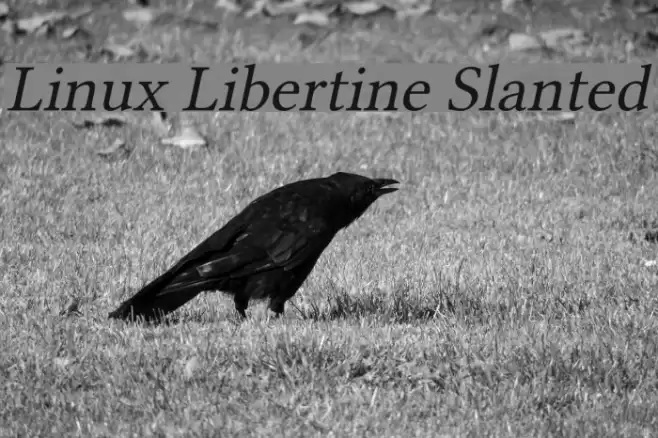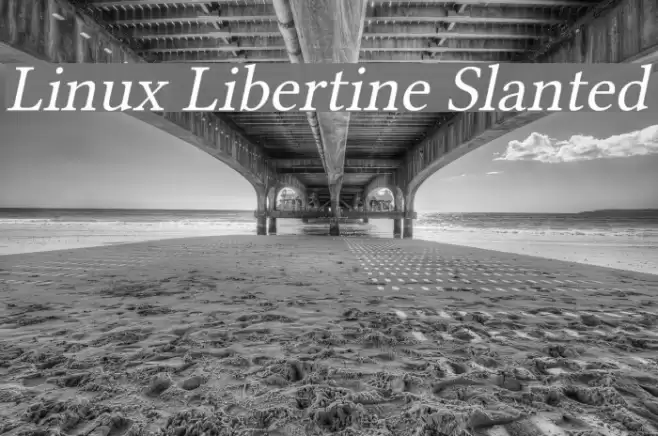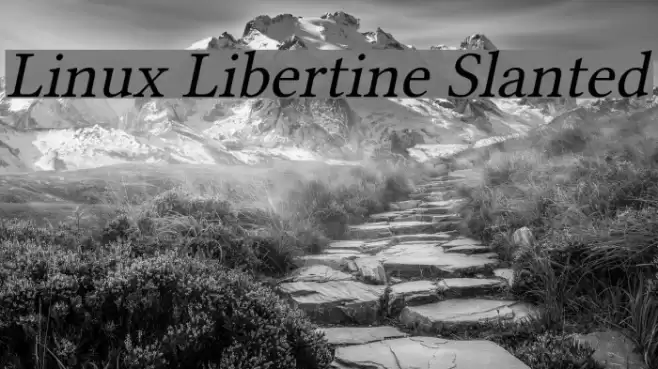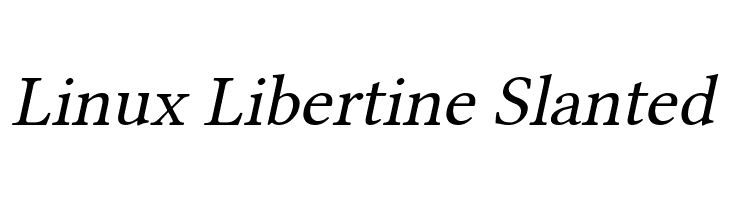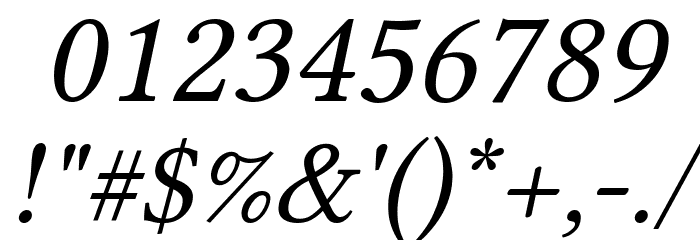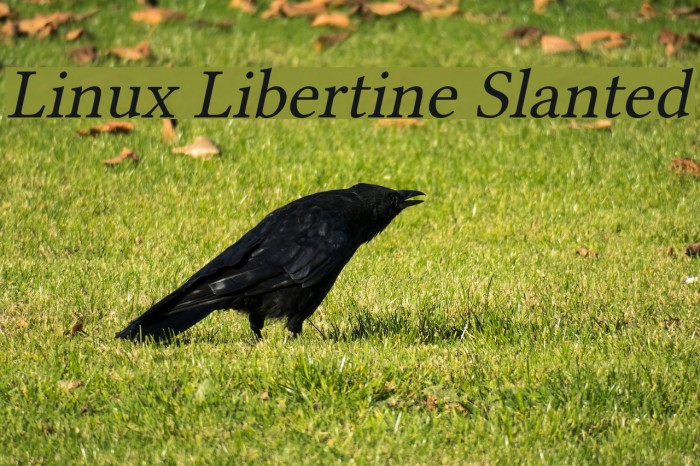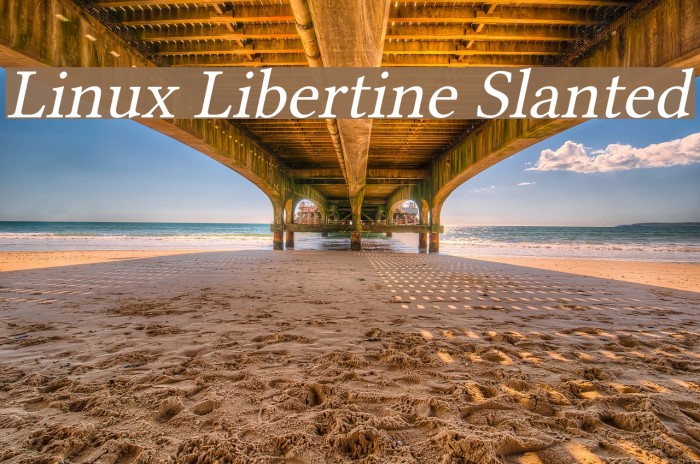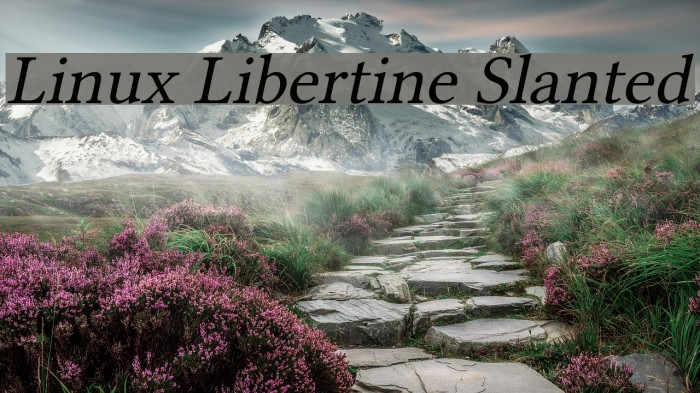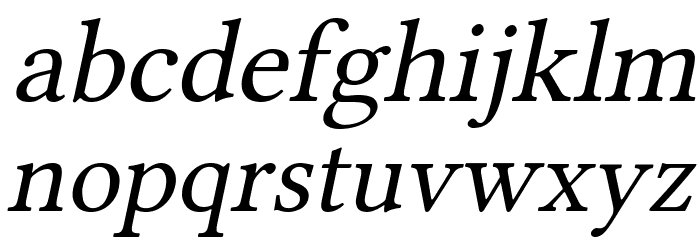
Linux Libertine Slanted Font
Linux Libertine Slanted Description
This font exhibits a classic serif style with a slight slant, giving it an elegant and sophisticated appearance. The characters are well-defined with moderate contrast between thick and thin strokes, enhancing readability while maintaining a stylish look. The uppercase letters are bold and commanding, while the lowercase letters are more delicate, providing a nice balance. Numerals are clear and distinct, making them suitable for both text and display purposes. The special characters are designed with the same attention to detail, ensuring consistency throughout the font. The overall design is versatile, suitable for a variety of applications from formal documents to creative projects.
A classic serif font with a slight slant, offering elegance and readability from Uncategorized fonts.
- Overall Style: Classic